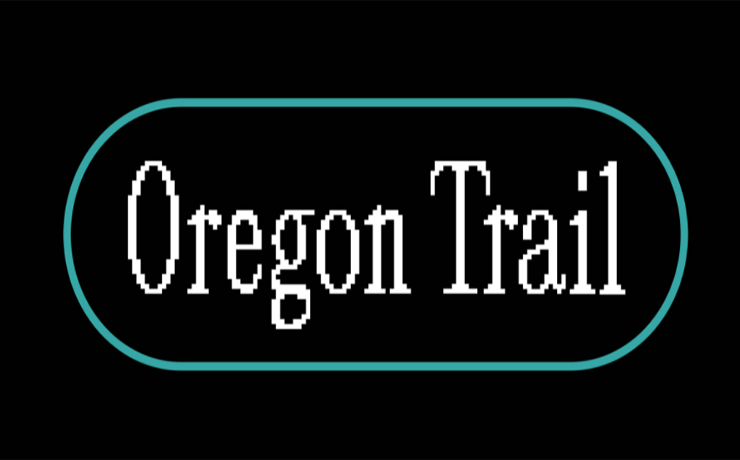
Oregon Trail Font is an amazing bitmap font that comes with a fantastic and attractive style and is used for free in various digital or printed projects.
This is an excellent gaming font that was developed and published by Julia Bates.
Each letter is designed with proper padding and in a regular pattern. So, this amazing bitmap typeface helps save space between letters while creating something new.
Includes attractive texture, uniform baseline, clear glyphs, advanced comprehension, and multilingual support. This is a great font family for game development.
Style: | Bitmap, Pixel, Gaming |
If you prefer better, well-proportioned headlines that take up less space, use proportional weight.